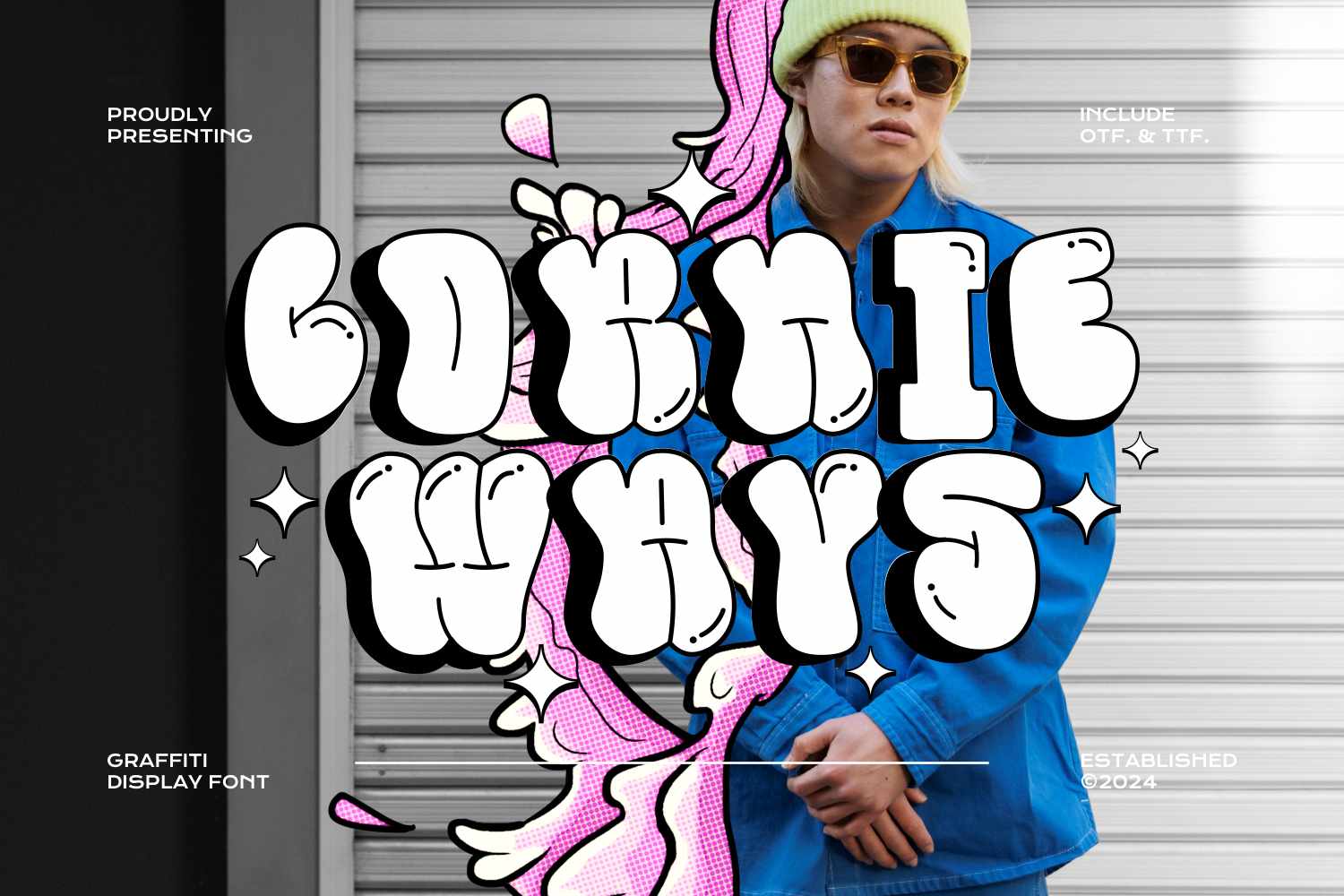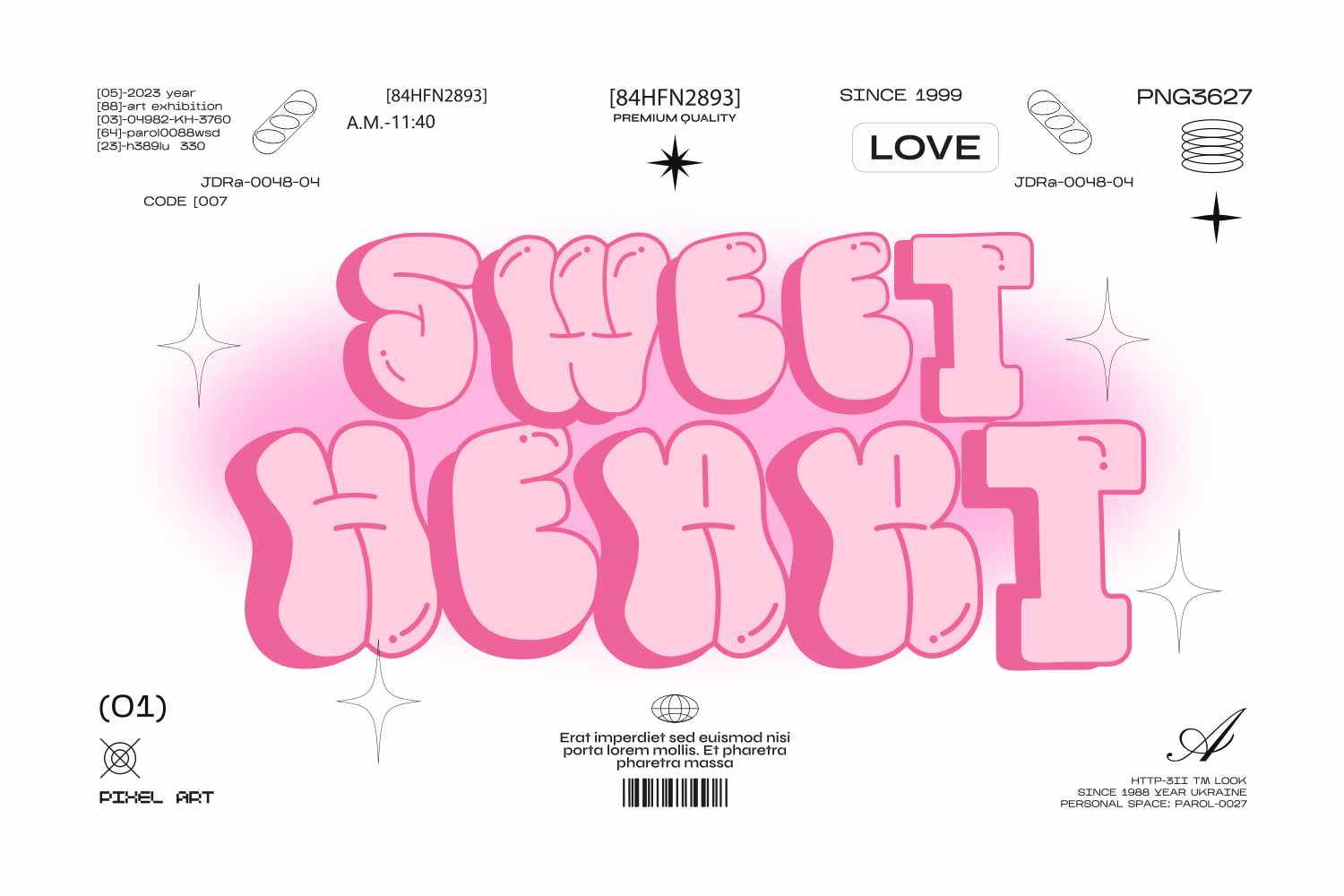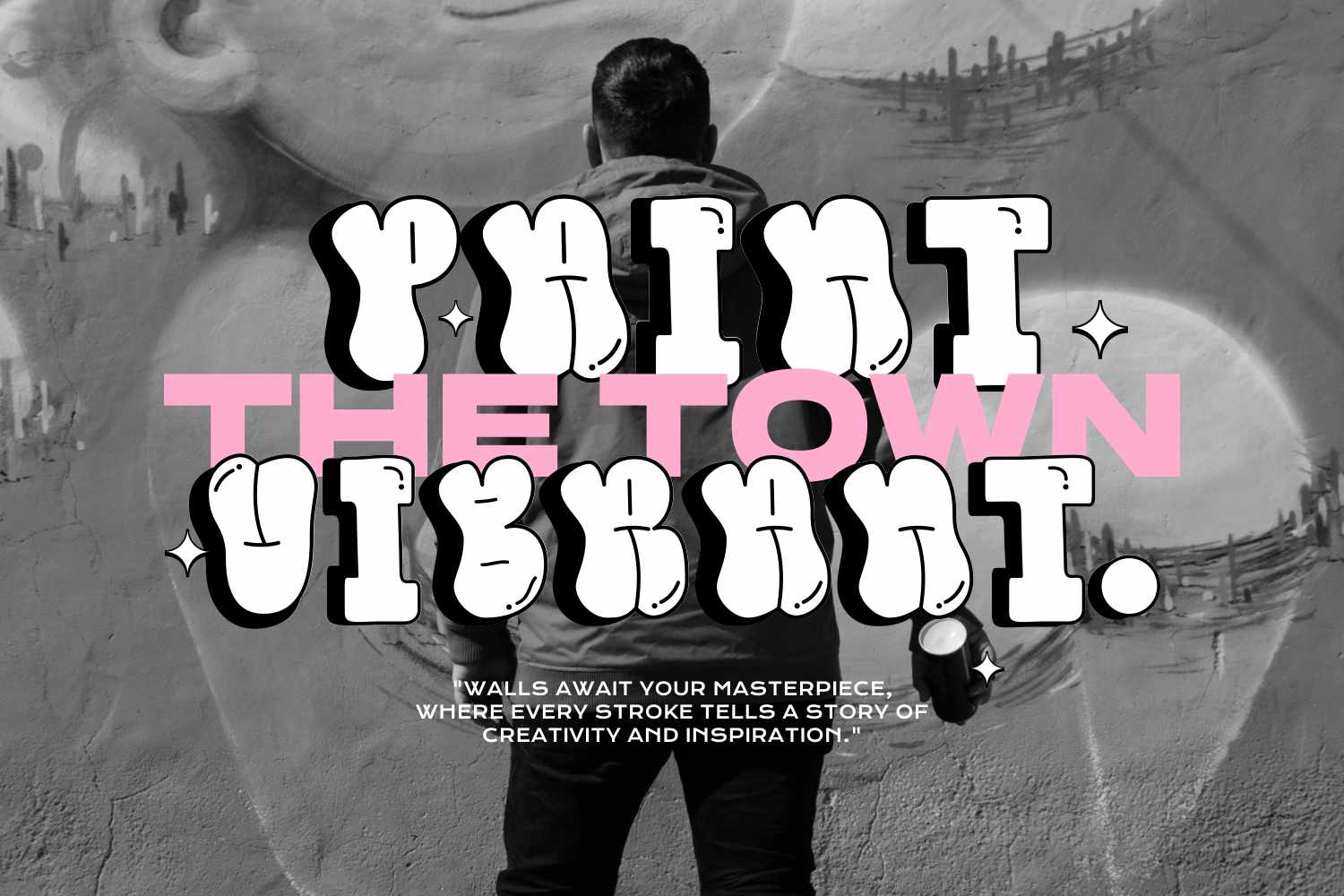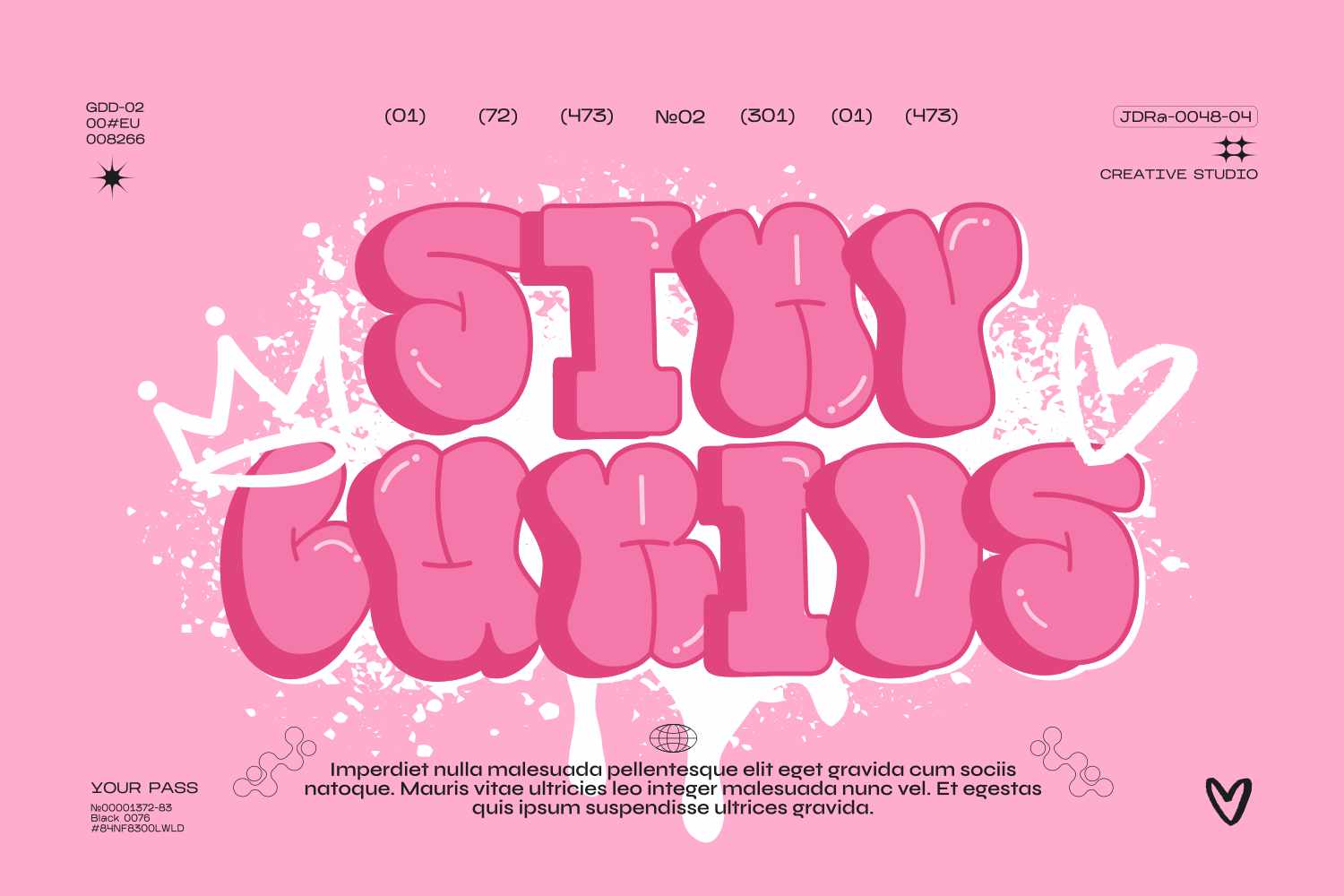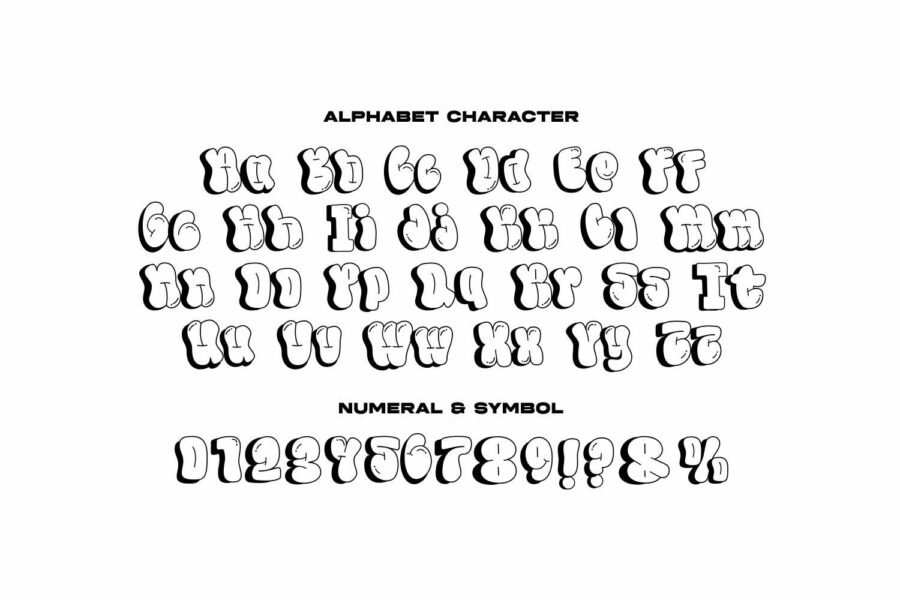
Cornie Ways is a bold and playful graffiti display font that bursts with personality. Its chunky, bubble-style letters and thick shadows create a dynamic 3D effect, making it perfect for street art designs, hip-hop themes, and modern urban branding. Each character is designed to stand out with a hand-drawn vibe, bringing energy and a youthful spirit to any creative project.
With its unique mix of cartoonish charm and graffiti edge, Cornie Ways is ideal for posters, apparel, album covers, event flyers, and social media graphics that demand attention. Whether you’re designing for a vibrant streetwear brand or adding a bold twist to your digital artwork, this font delivers a fresh and energetic look that leaves a lasting impression.